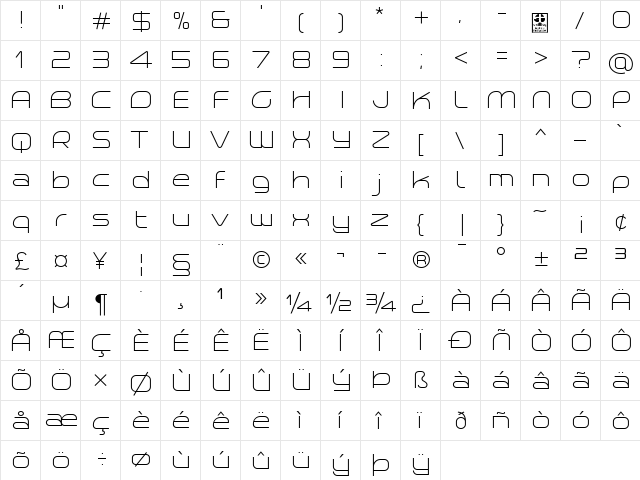
Planetium-X Light Demo Regular
Design Context for Planetium-X Light Demo Typeface
Planetium-X Light Demo offers clean, dependable letterforms without strong stylistic allegiance, making it a practical choice for designers who need flexibility. Its slender proportions lend an understated elegance to any composition.